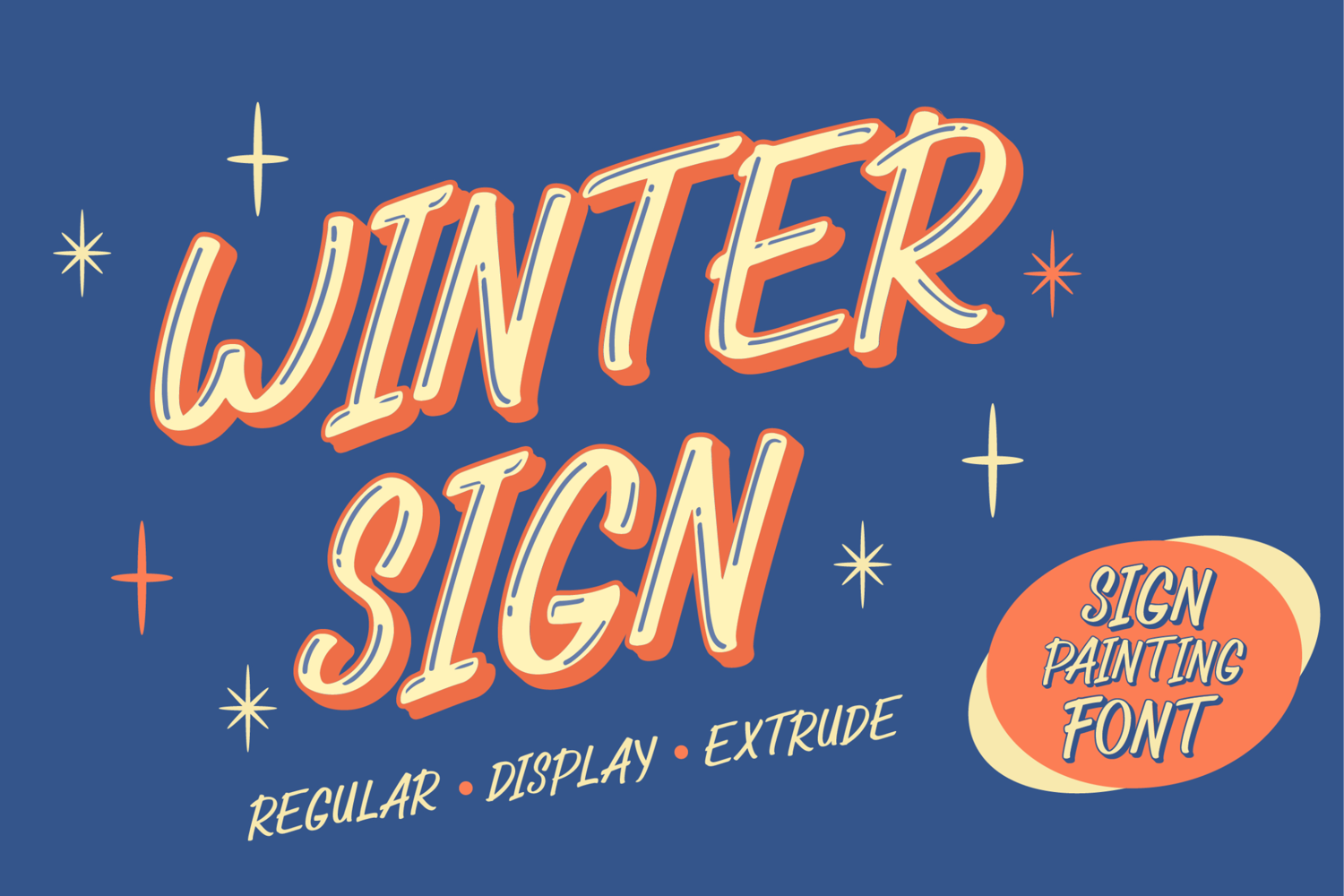
Bring authentic vintage charm to your creative projects with Winter Sign, a meticulously crafted sig… Read more
Winter Sign Font
Winter Sign
Winter Sign Extrude
Winter Sign Display